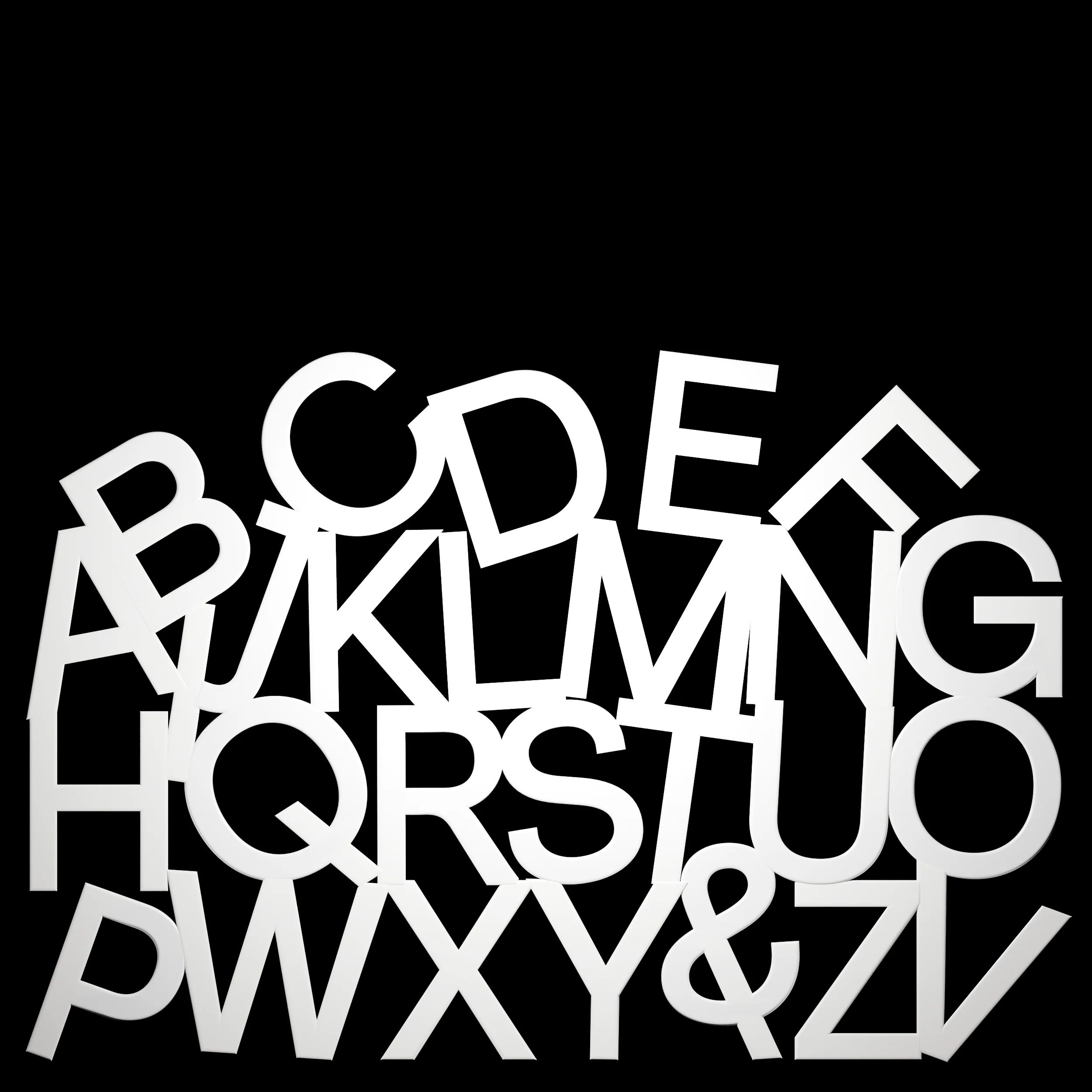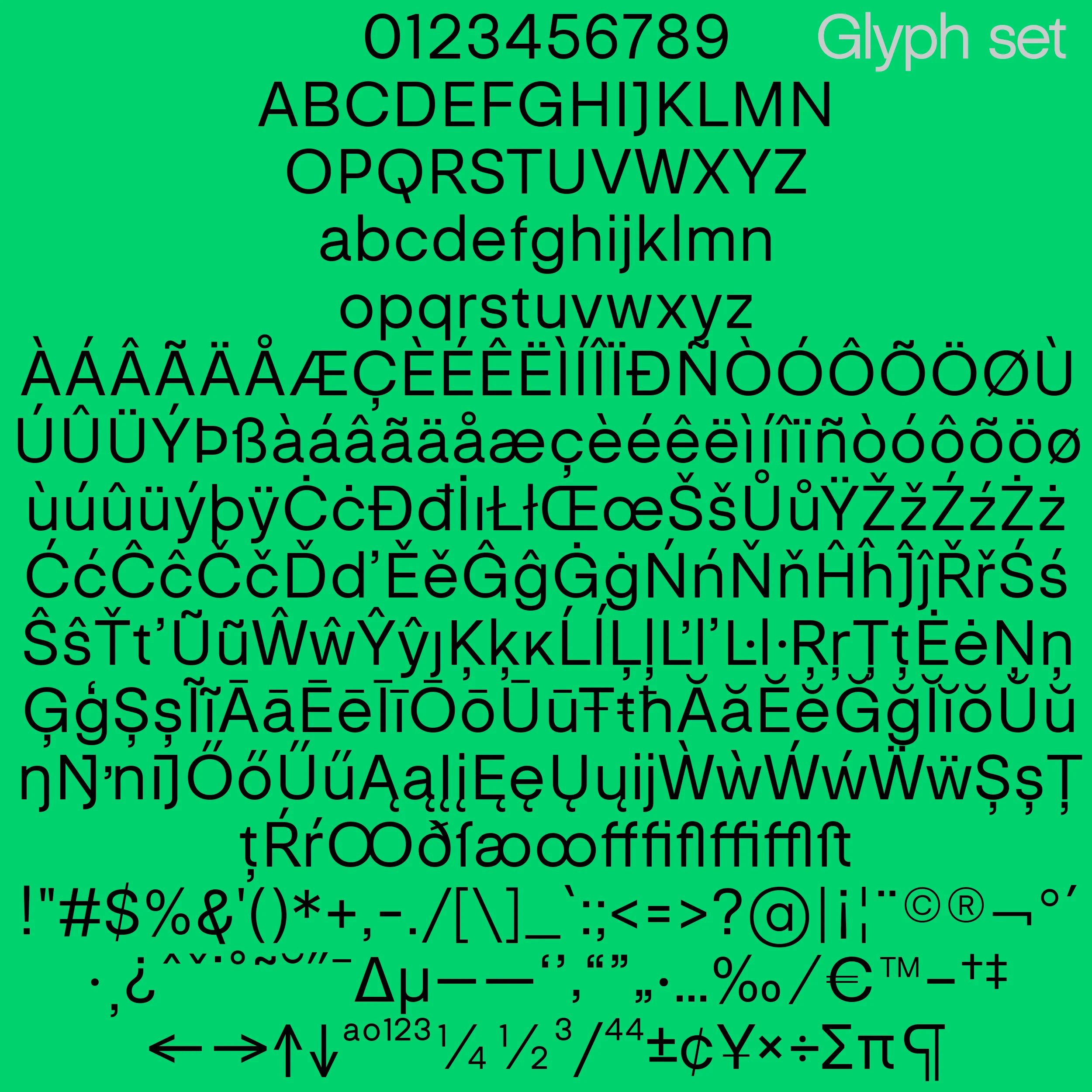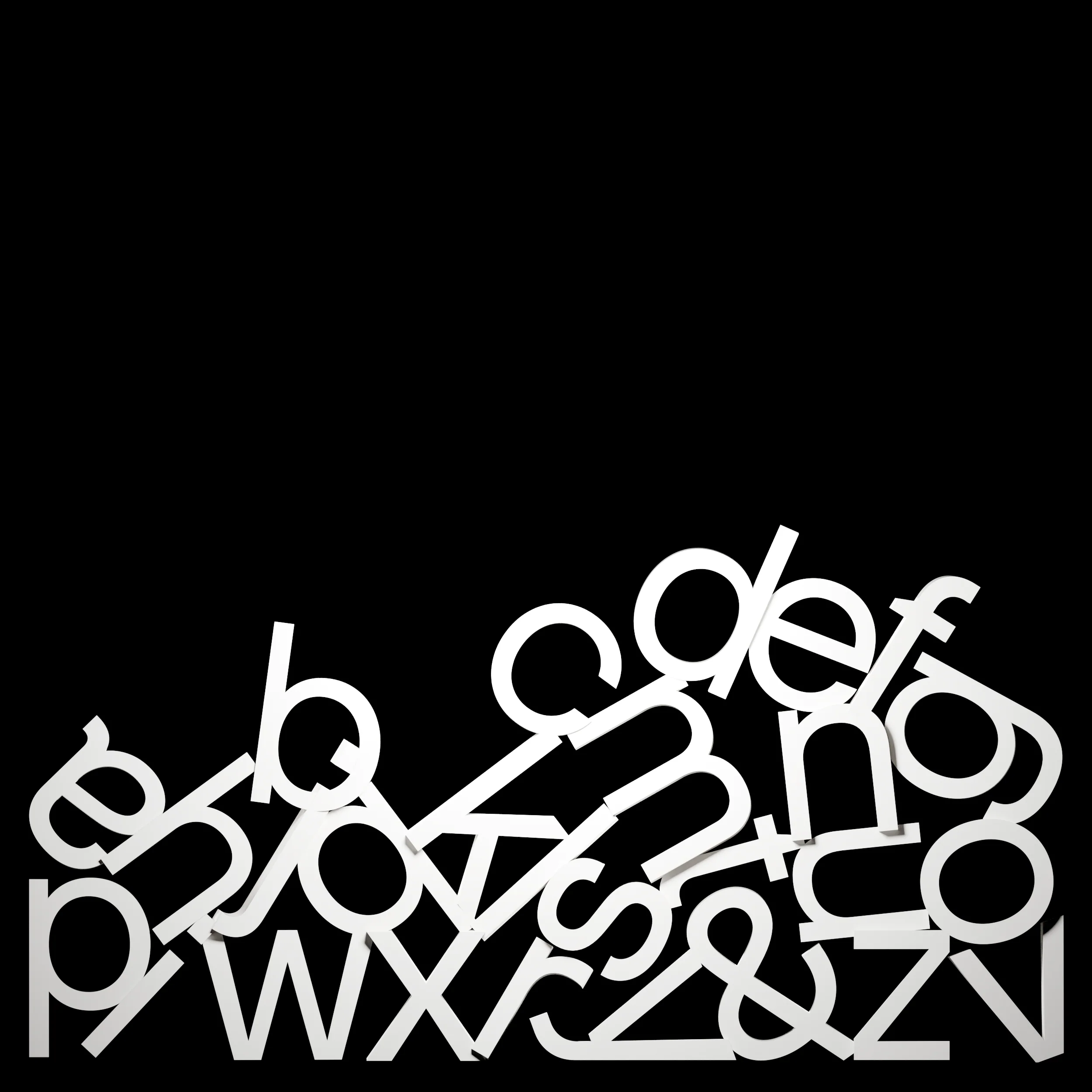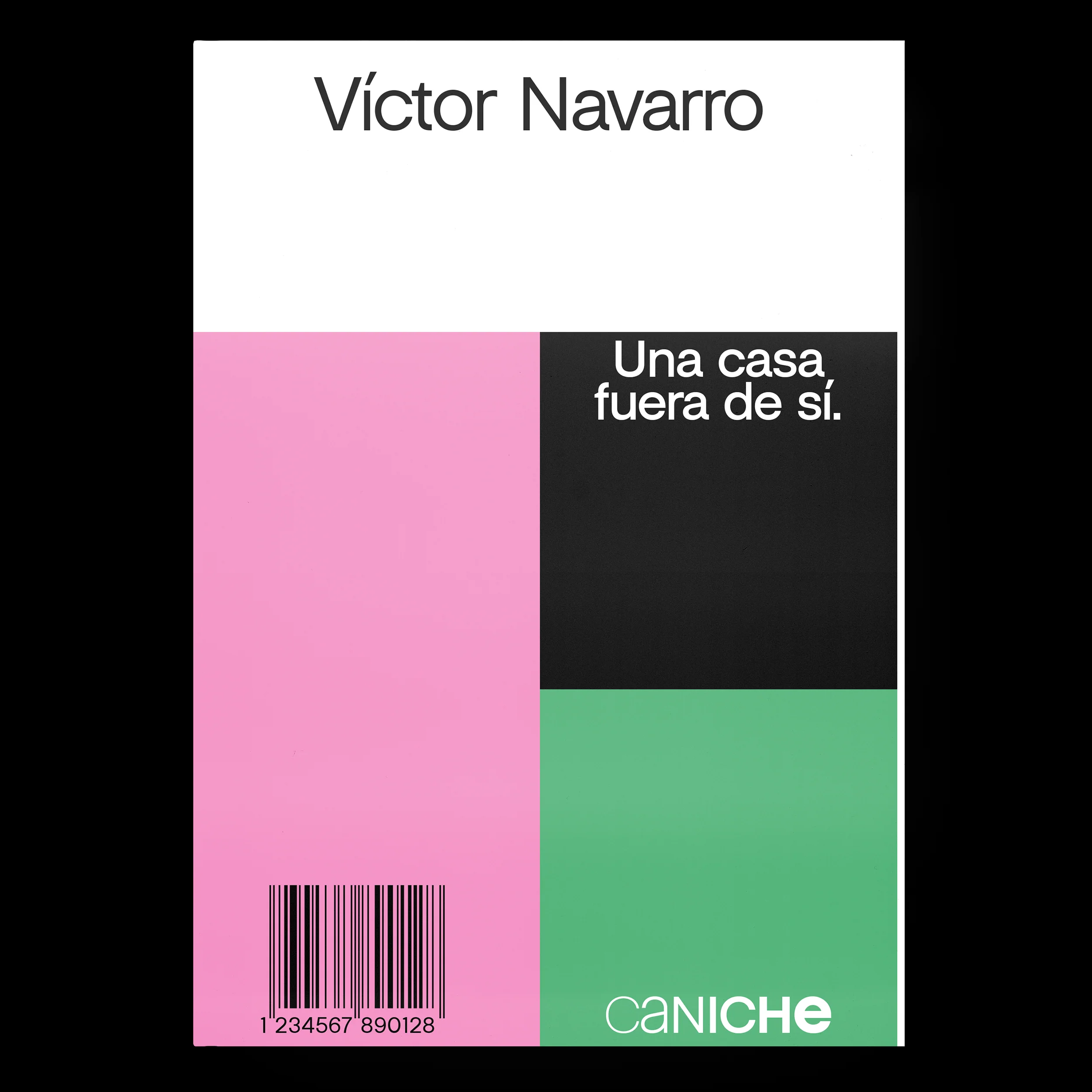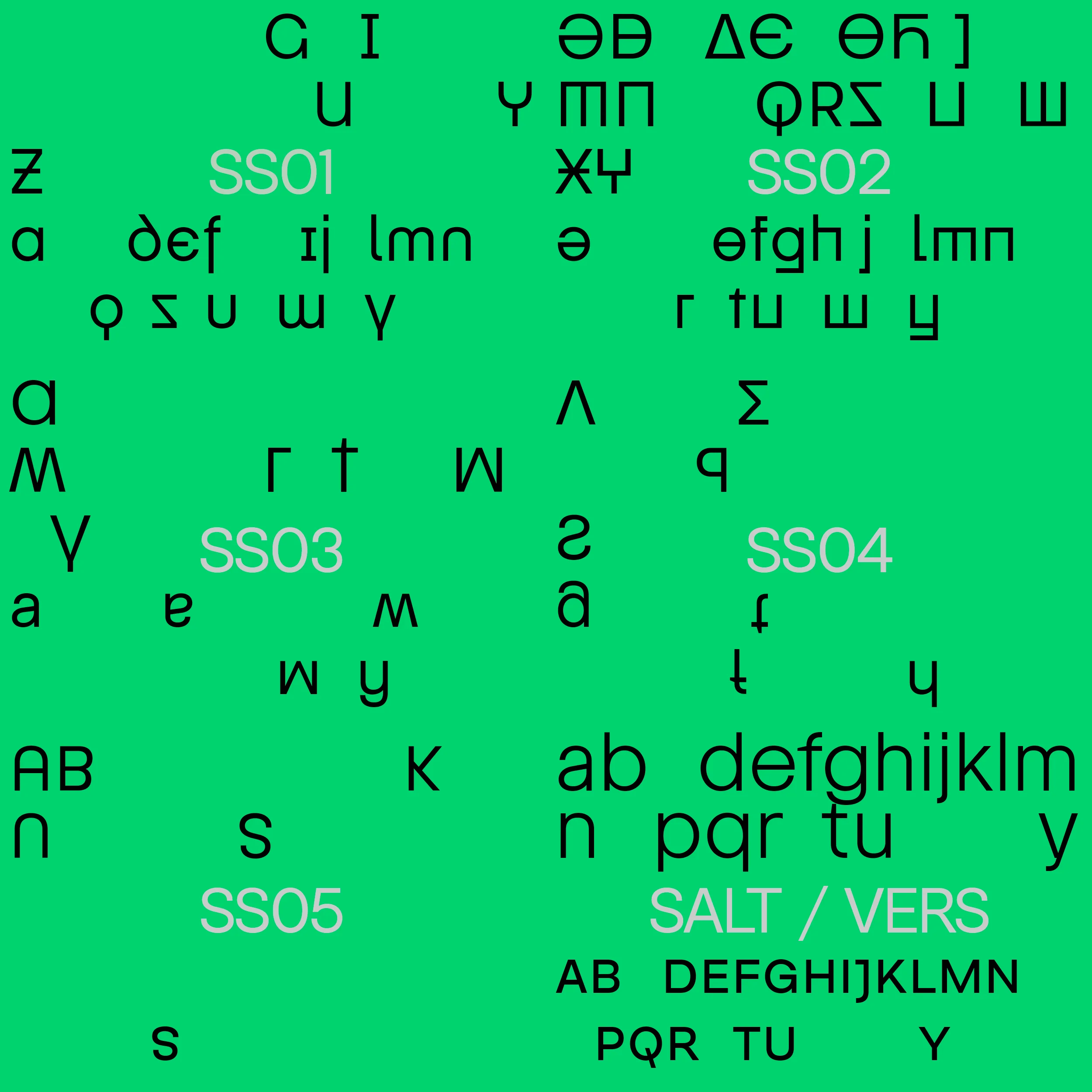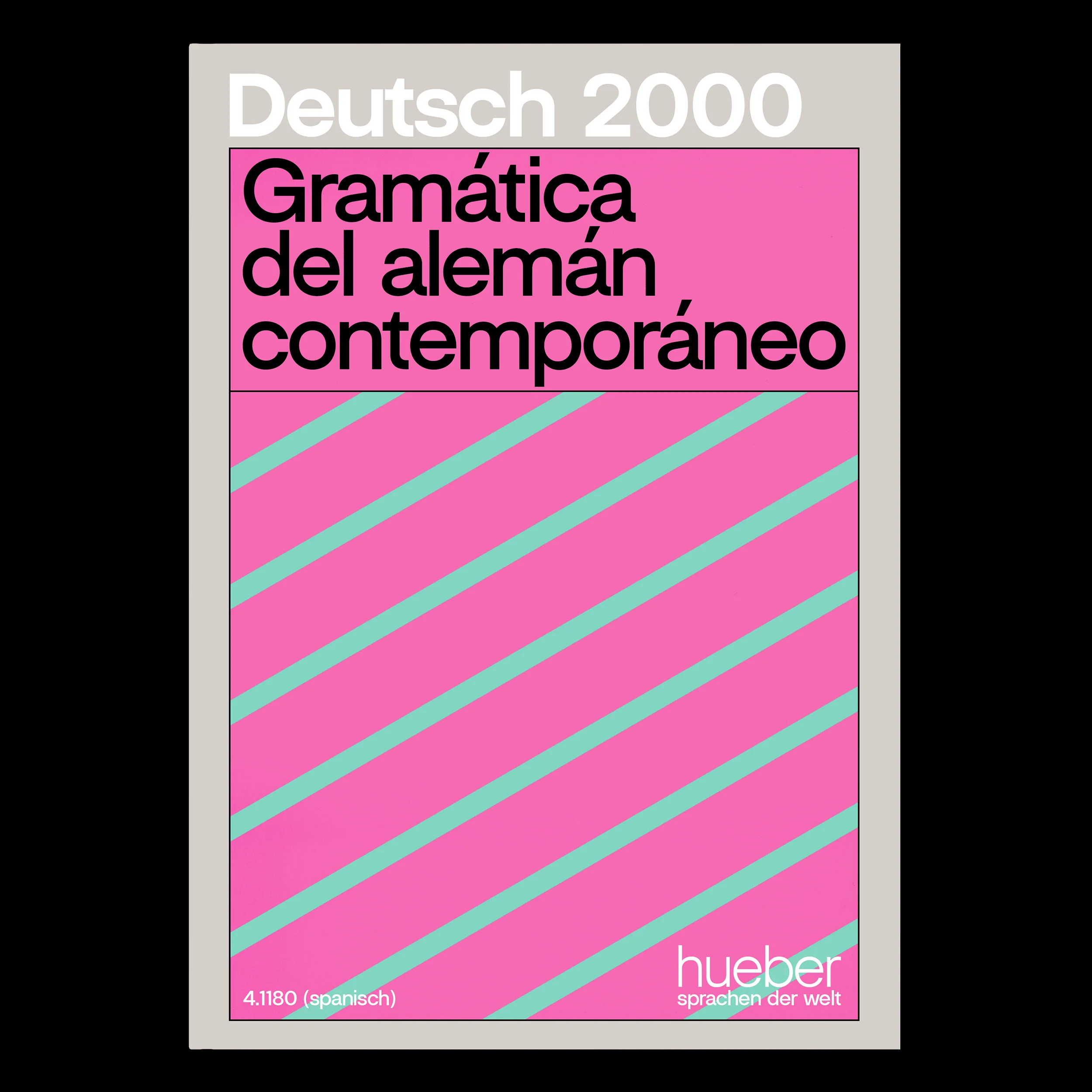
INDG Alvica
Swiss-knife (you get it?), everyday use, highly versatile, all-in-one typographic family. INDG Alvica counters its sober appearance with a broad set of quirky alternates.
INDG Alvica
Swiss-knife (you get it?), everyday use, highly versatile, all-in-one typographic family. INDG Alvica counters its sober appearance with a broad set of quirky alternates.